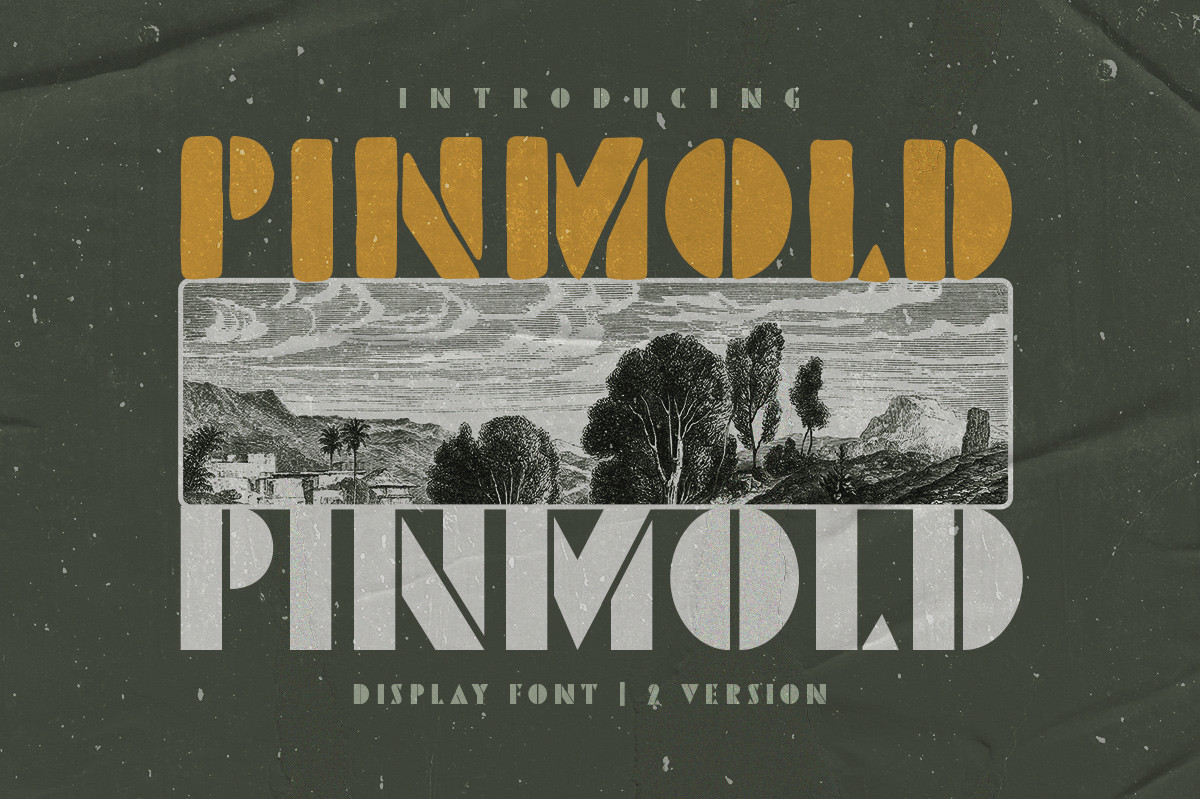
Pinmold Font
Pinmold Font is perfect for industrial design portfolios, manufacturing company branding, construction firm materials, metalworking shop signage, precision engineering presentations, architectural blueprint annotations, machinery maintenance manuals, fabrication workshop displays, technical equipment labeling, and heavy industry safety documentation. This robust typeface works beautifully for automotive repair shops, foundry operations, steel fabrication companies, tool manufacturer catalogs, industrial training materials, workshop safety posters, and mechanical engineering firms.
What makes Pinmold Font so exciting is its authentic representation of industrial craftsmanship and precision manufacturing processes. The font features bold, structured letterforms that mirror the strength and reliability of molded materials and engineered components. Each character demonstrates the meticulous attention to detail found in quality manufacturing, creating visual connections between typography and industrial excellence. The distinctive design communicates durability, precision, and professional expertise, making it an invaluable tool for brands operating in manufacturing, construction, and heavy industry sectors where trust and reliability are paramount.
The Pinmold Font family includes multiple weights and industrial-inspired variations designed for comprehensive manufacturing communications. The collection features regular, medium, bold, and extra-bold weights, each maintaining the font's industrial character while providing flexibility for technical documentation and safety materials. Additional elements include technical symbols, measurement notations, and industrial icons that enhance manufacturing-related designs. Extended character sets support international industrial operations, while specially designed numerical figures ensure clarity in technical specifications and measurement displays.